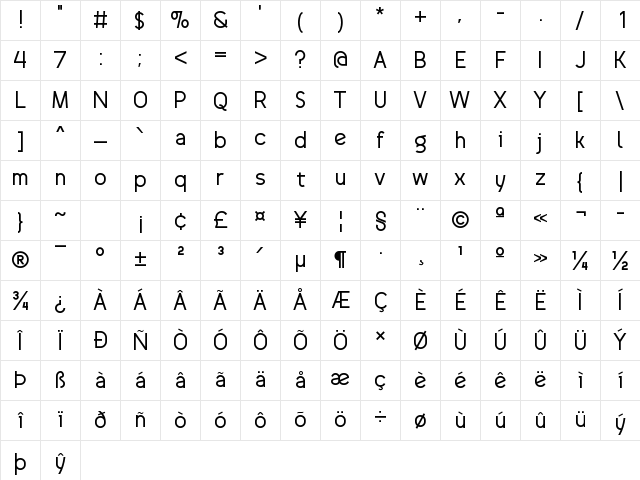
Complete Drakoheart Revofit Solid Original glyph index. Displaying only characters natively supported by Drakoheart Revofit Solid Original font.
Drakoheart Revofit Solid is a composed and adaptable typeface that performs quietly and consistently across a wide range of design contexts.